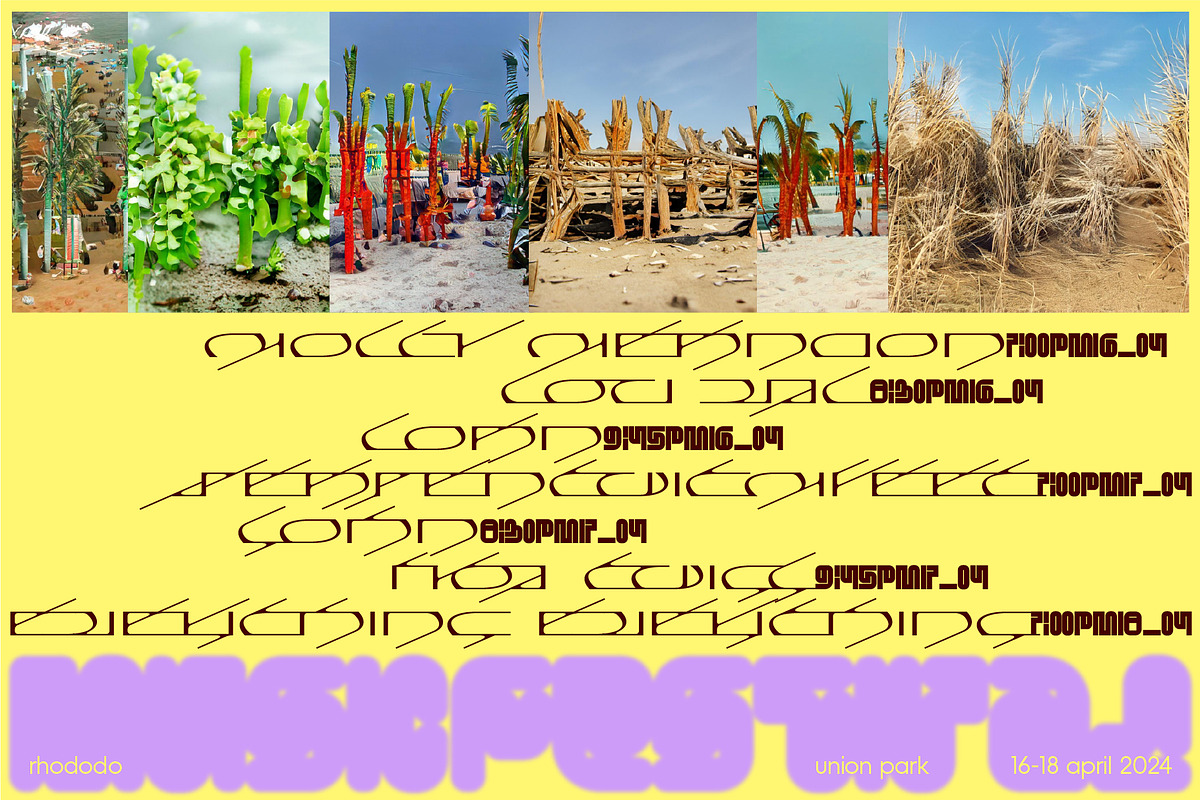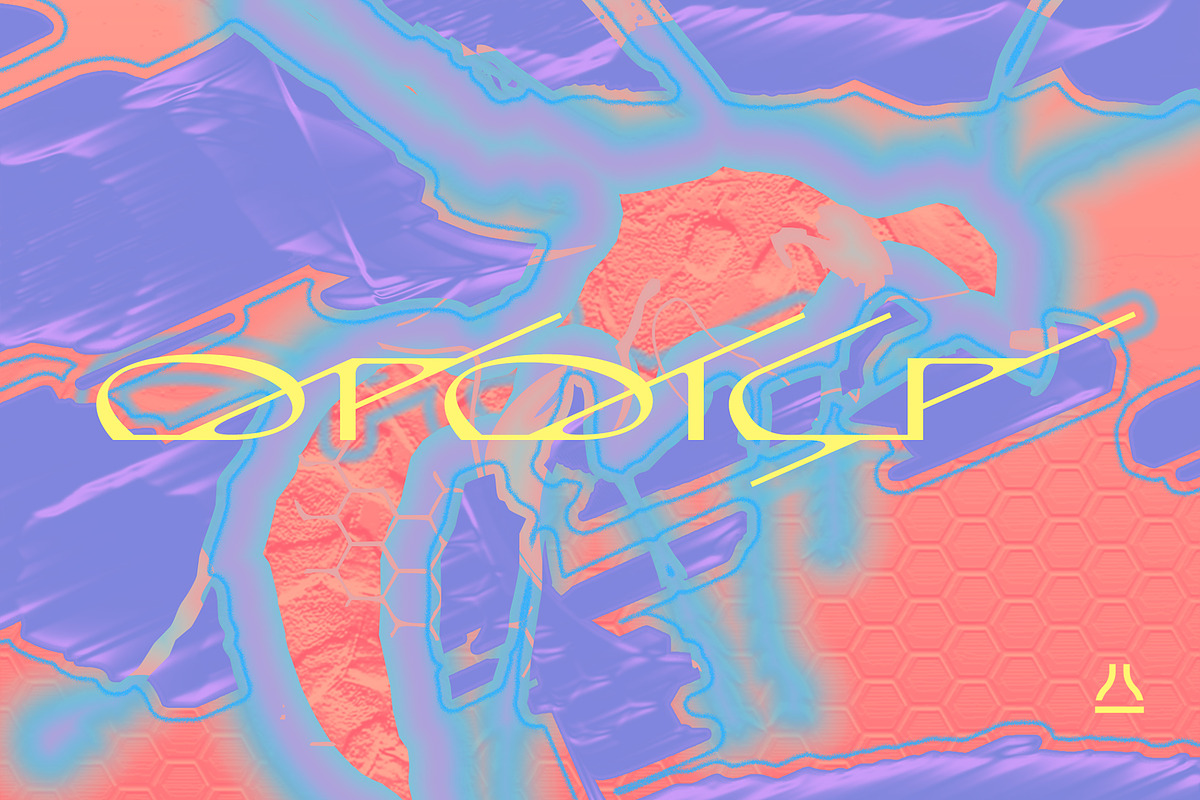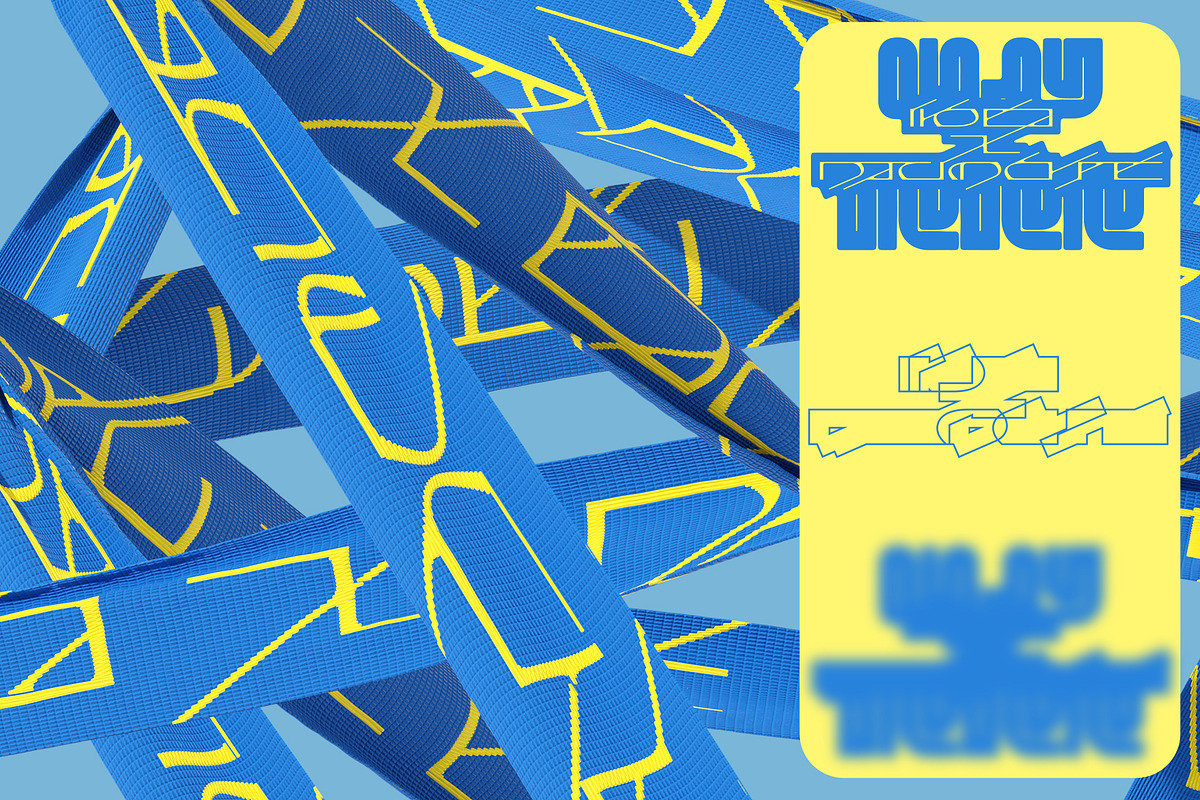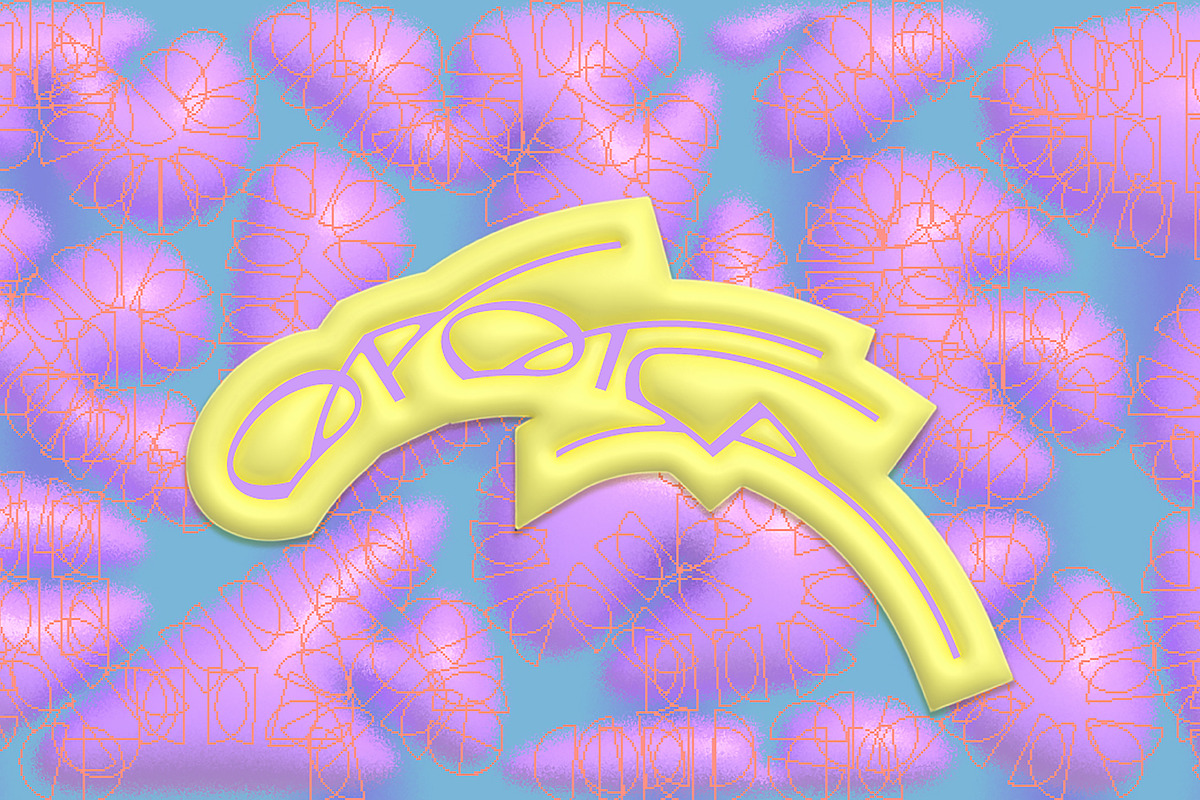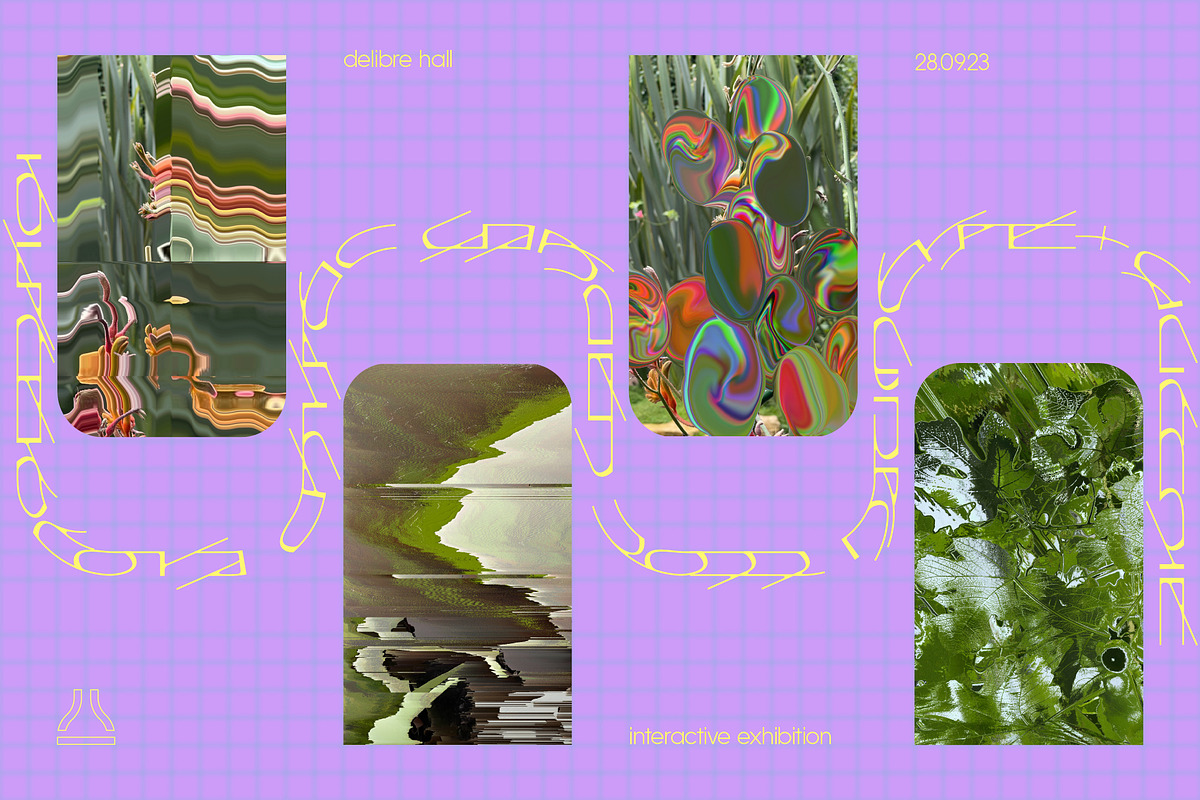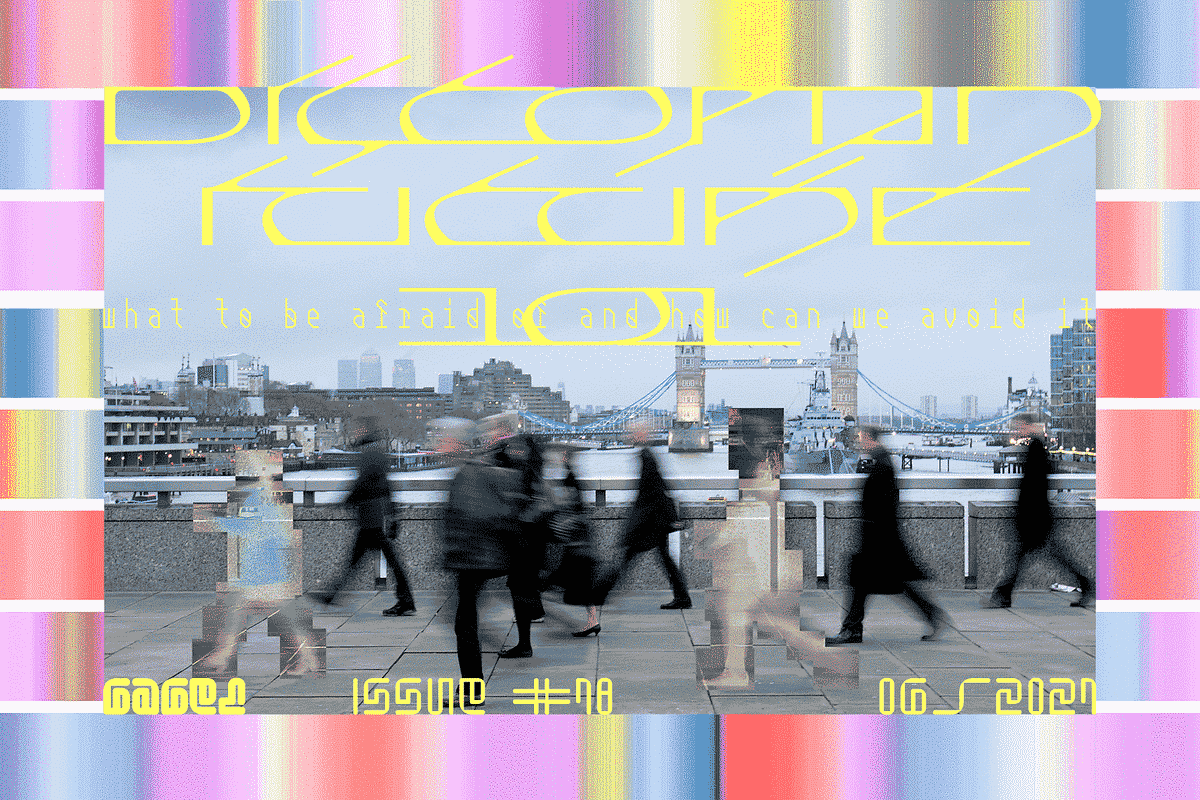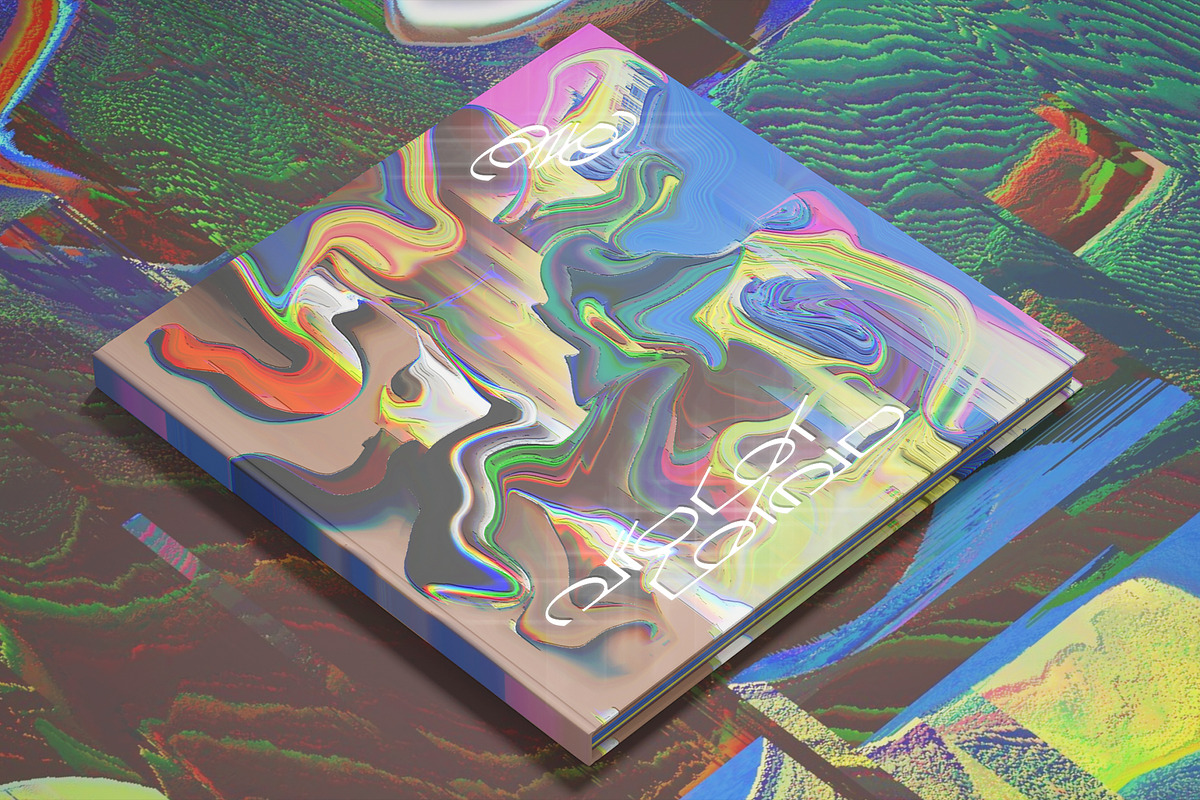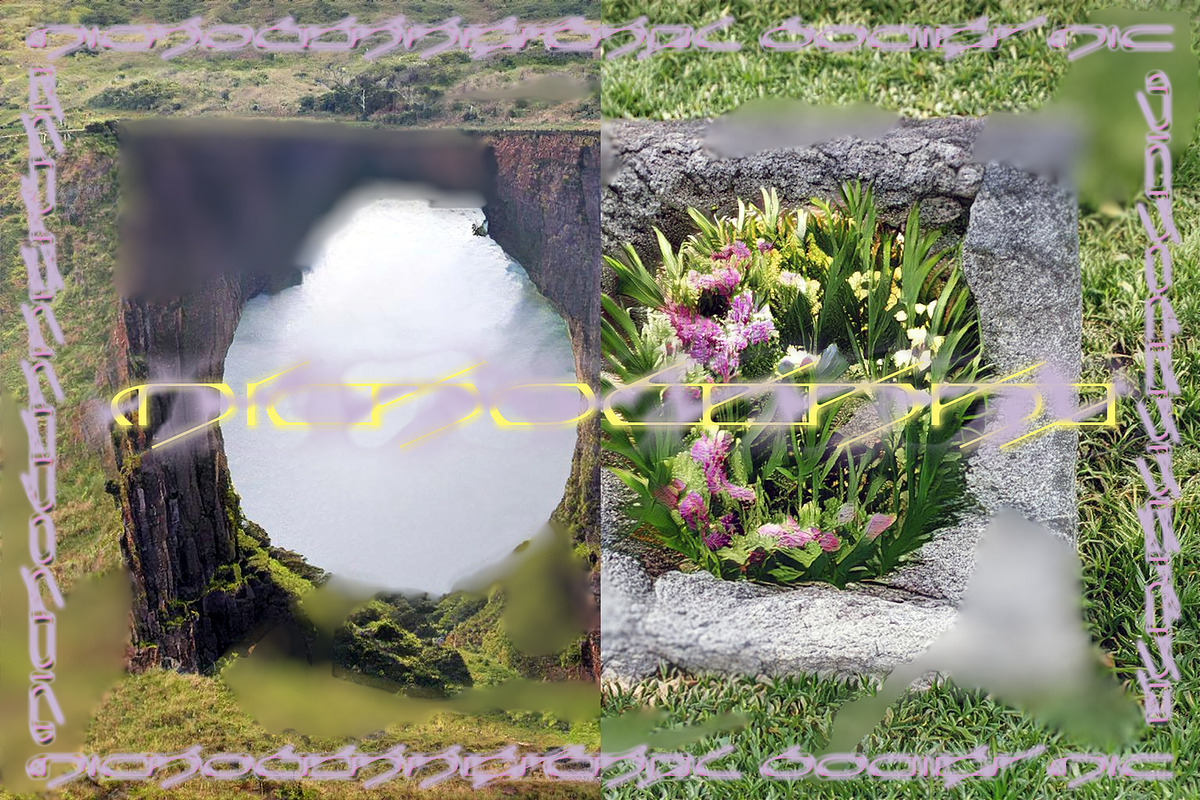
Wasp | wide futurictic sans
Wasp is a unique, sharp and springy (hence the name), wide display typeface.
The central concept for the font is a combination of an ornament with a transfer of the meaning, so, depending on the angle, it can be perceived as a decoration as well as a written word.
Wasp has a non-conventional letter structure, but it's built with classic style didone elements, high contrast strokes, and swooshes.
Super eclectic and barely readable, Wasp makes a perfect solution if you need a strong eye-catcher, that could set the tone for a striking design.